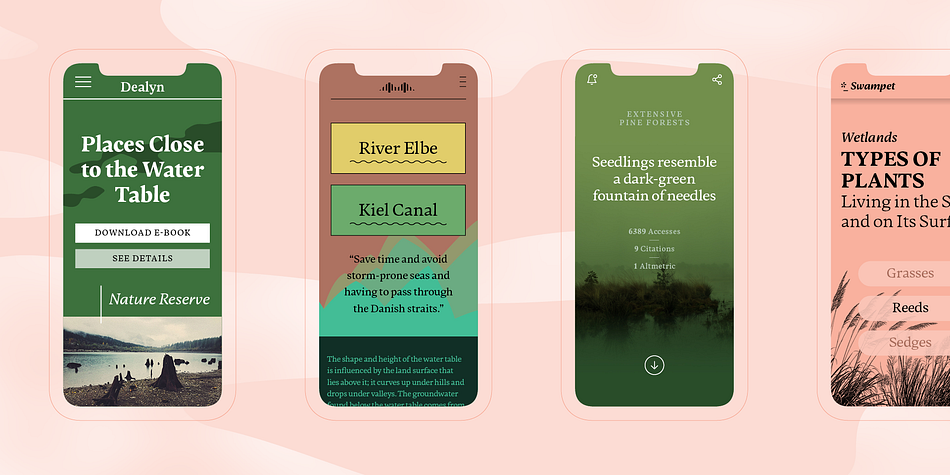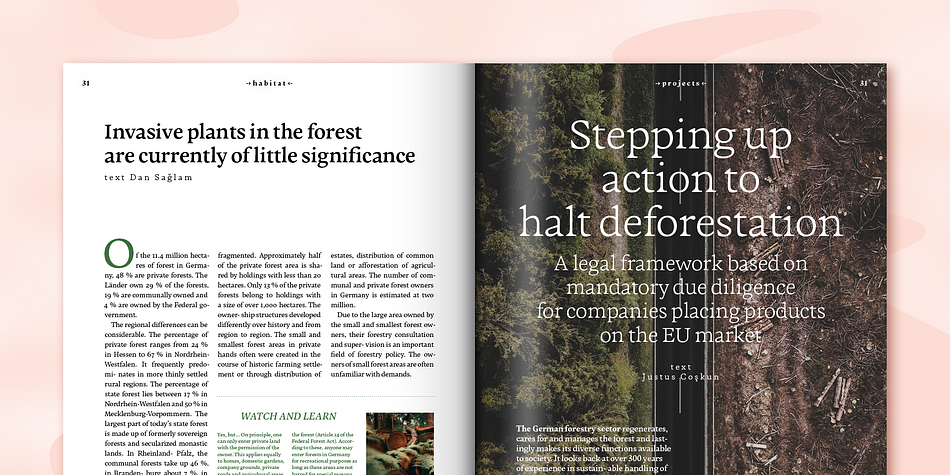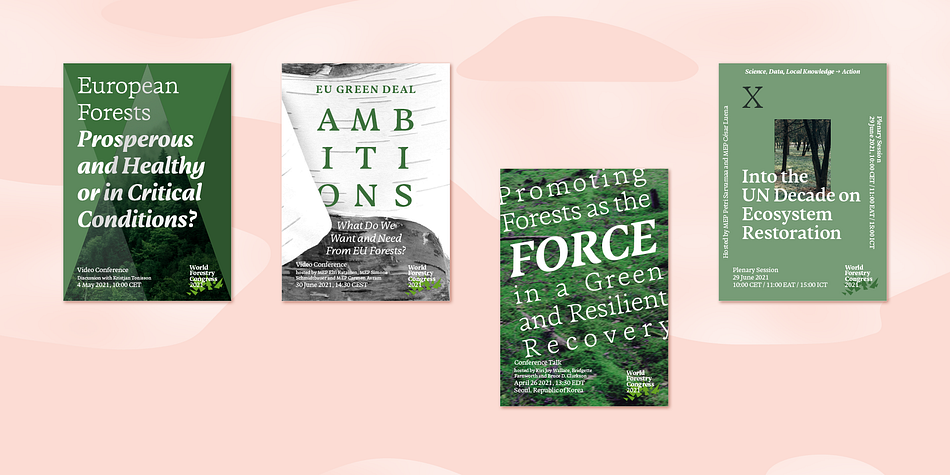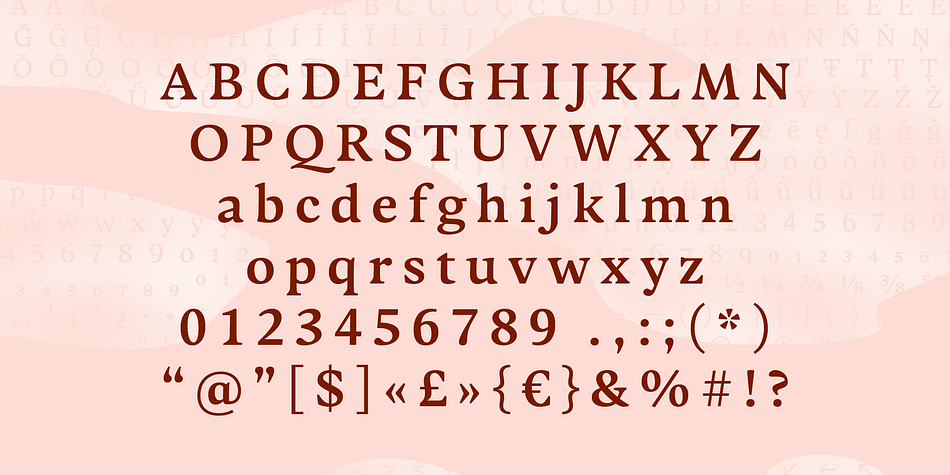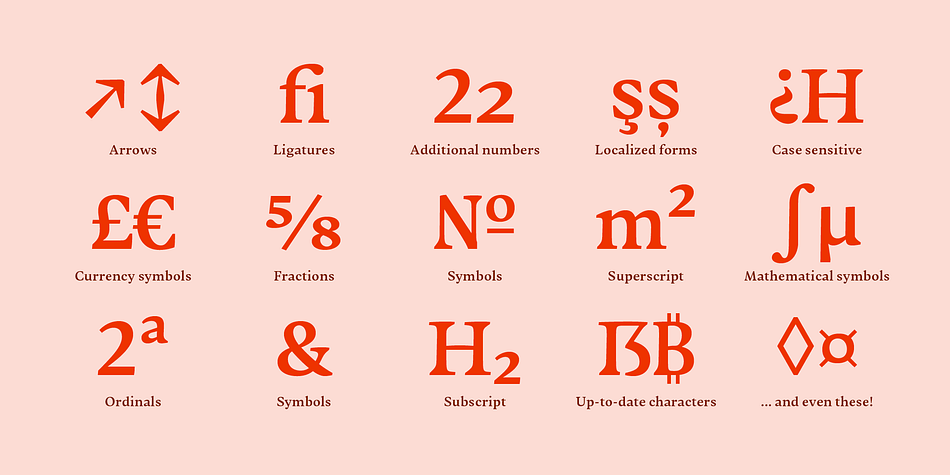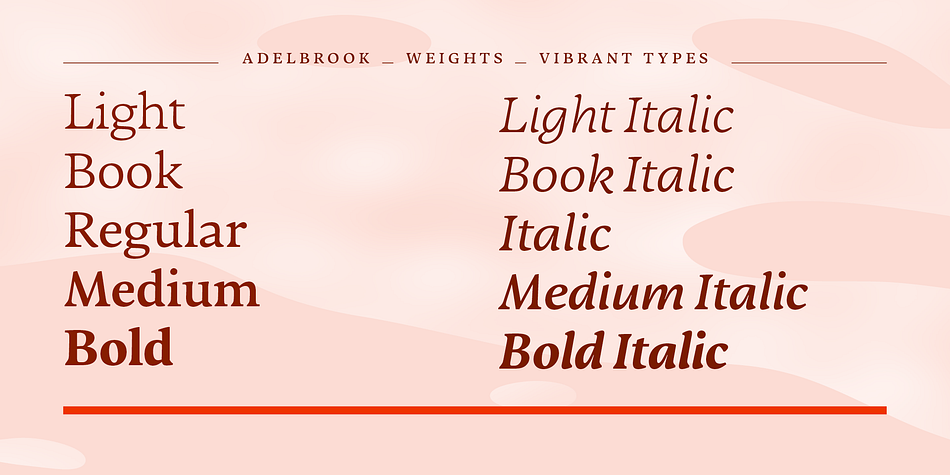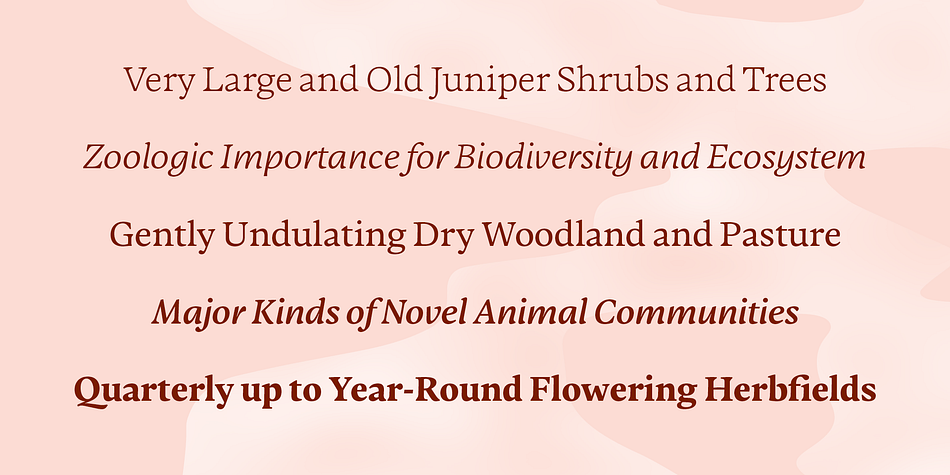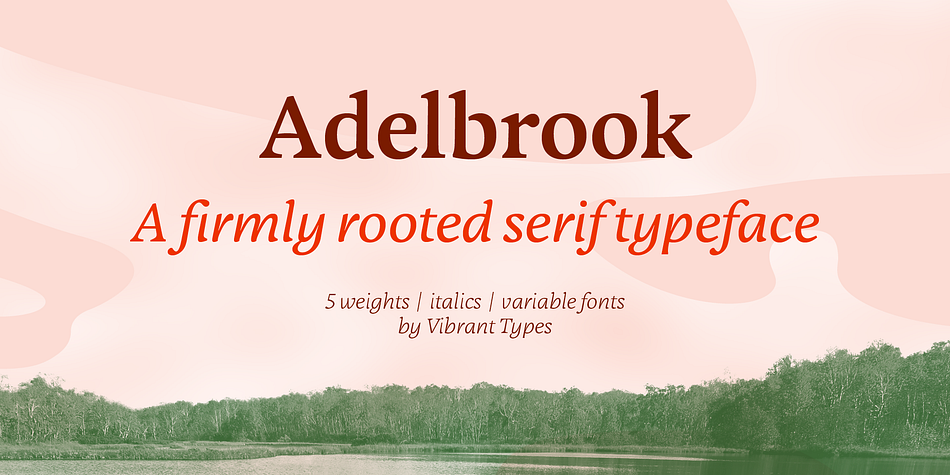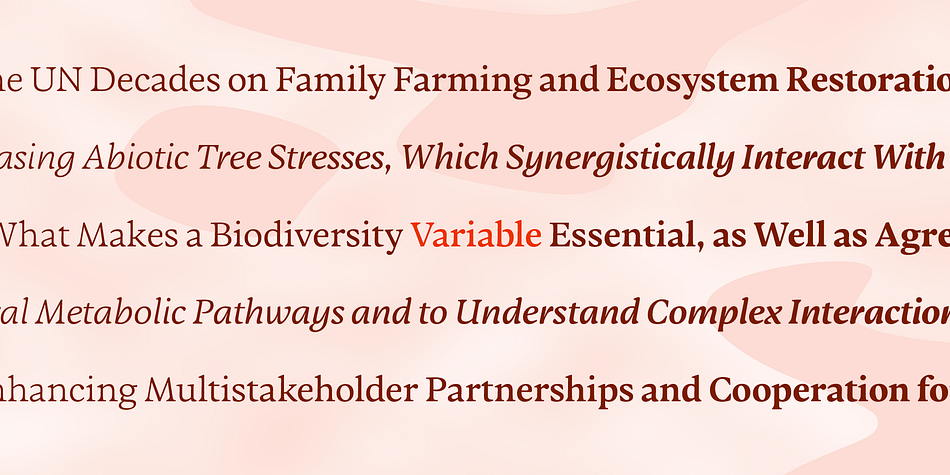
Designed by Philip Lammert, Adelbrook is a serif font family. This typeface has twelve styles and was published by Vibrant Types.
Adelbrook is a dynamic serif typeface that keeps calm. It enriches text with the archaic structure of humanist type, because its characters arrange in a harmonious rhythm with a dynamic stroke, asymmetric serifs and stems that lean in the direction of reading. These characters have gravity and are firmly on the baseline. The tapered stems define a heaviness that end in emphasized foot serifs. Actually all the details are heftier the lower they are. This is particularly evident in a subtle vertical hairline variation, light or unapplied head serifs, and clipped upper dots.
The clearness of the semi-serif italics with a brushy nature integrates perfectly in a subtle way. All these details result in a sophisticated text typeface with a sharp contemporary design.